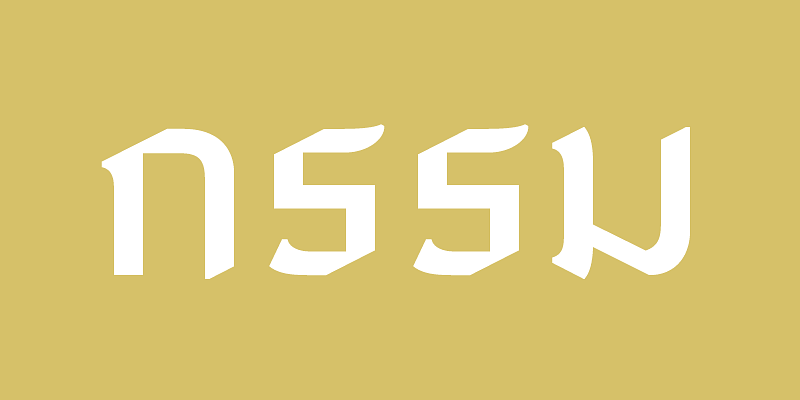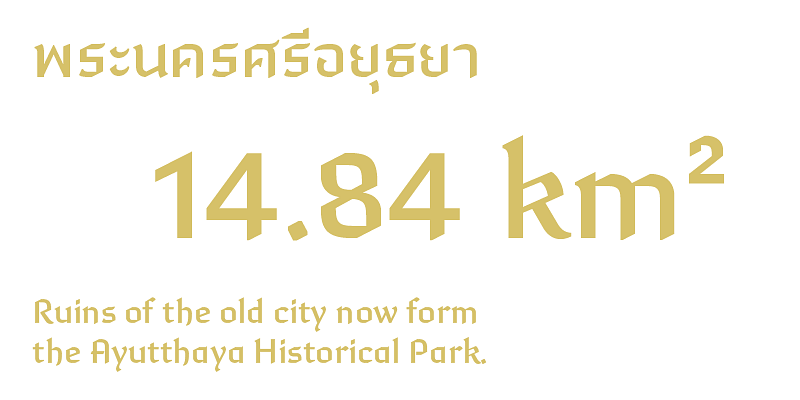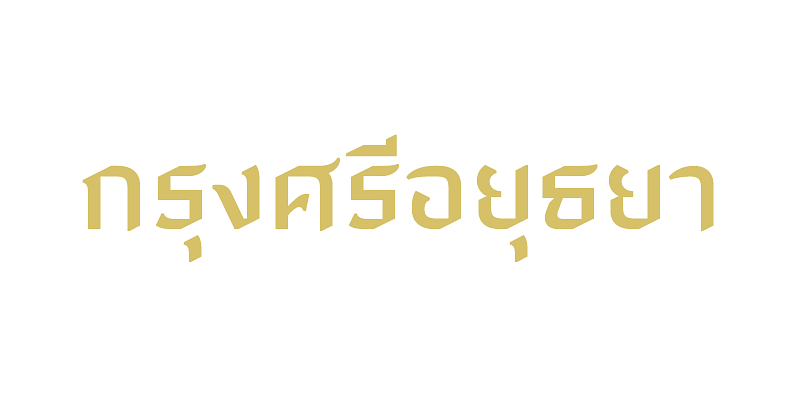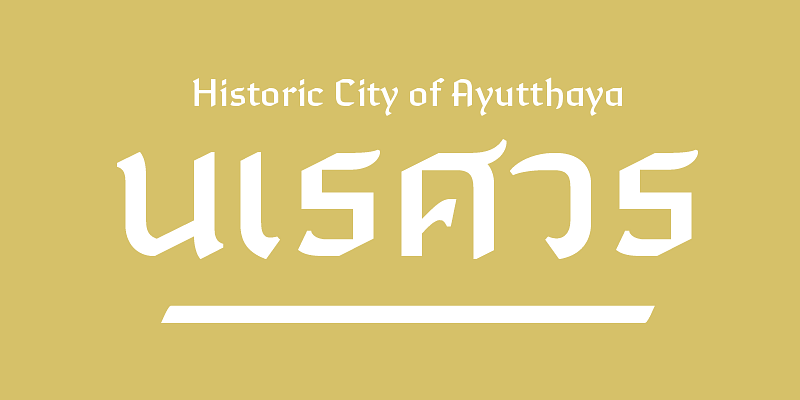
An eye-catching Thai Blackletter with unique features, designed with the essence of traditional Thai handwriting in mind. This typeface is suitable for use in various promotional media.